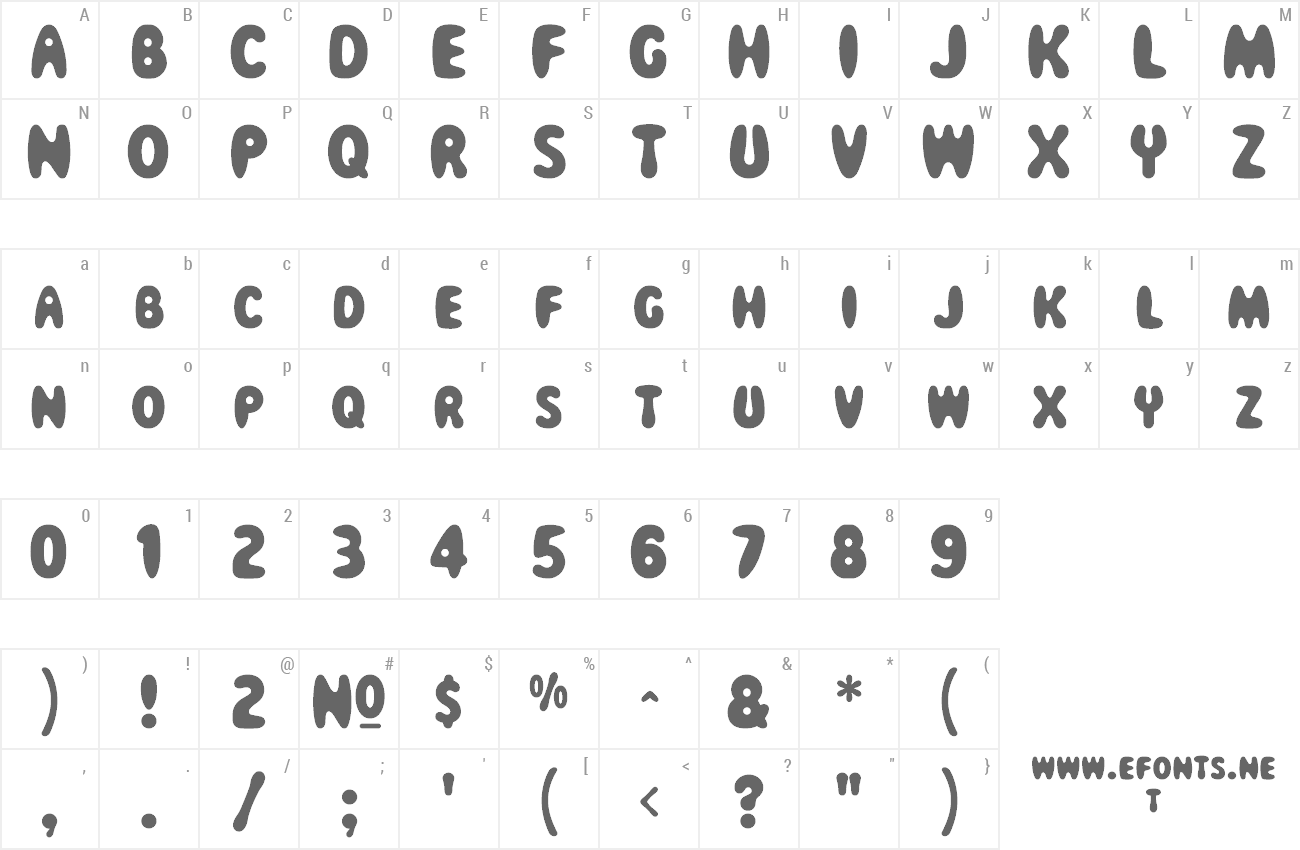
| Font name: | Magical Mystery Tour |
| Author: | K-Type |
| Note by K-Type | |
| Magical Mystery Tour, Plain and Outline Shadow, are two fonts based on the lettering used for the Beatles’ Magical Mystery Tour record sleeve of 1967. |